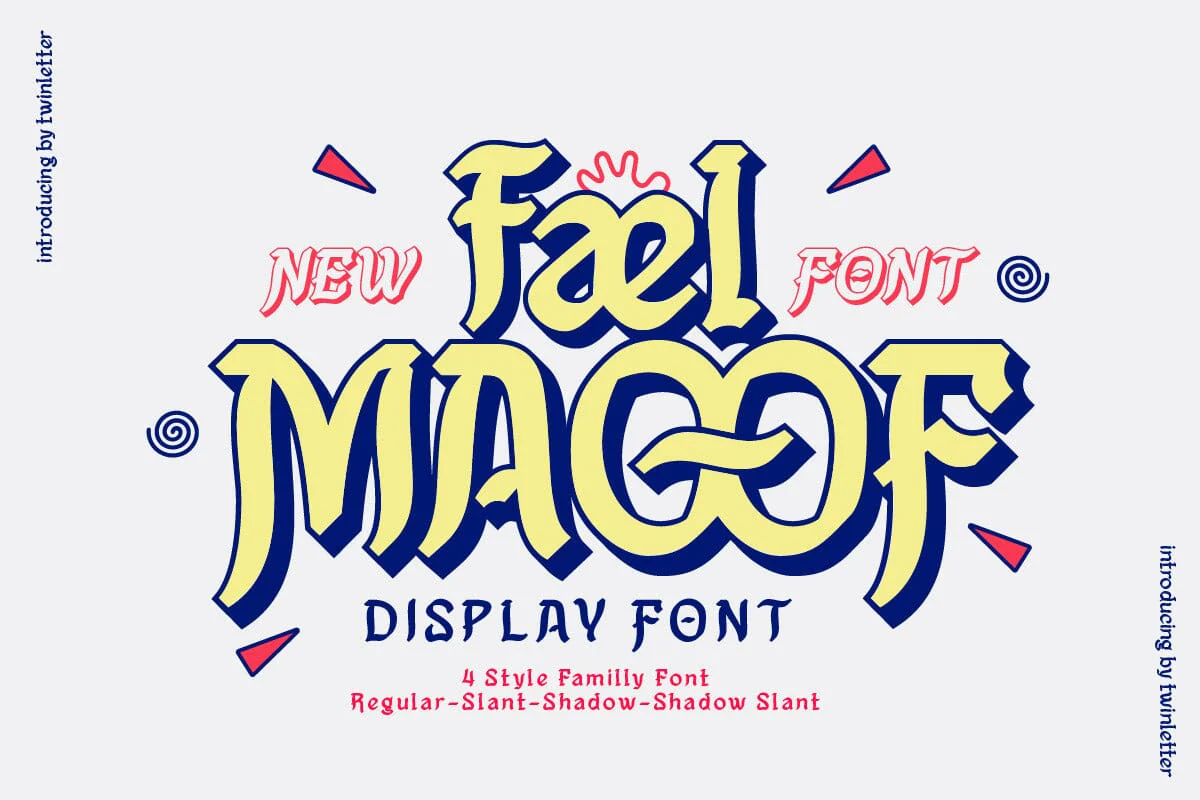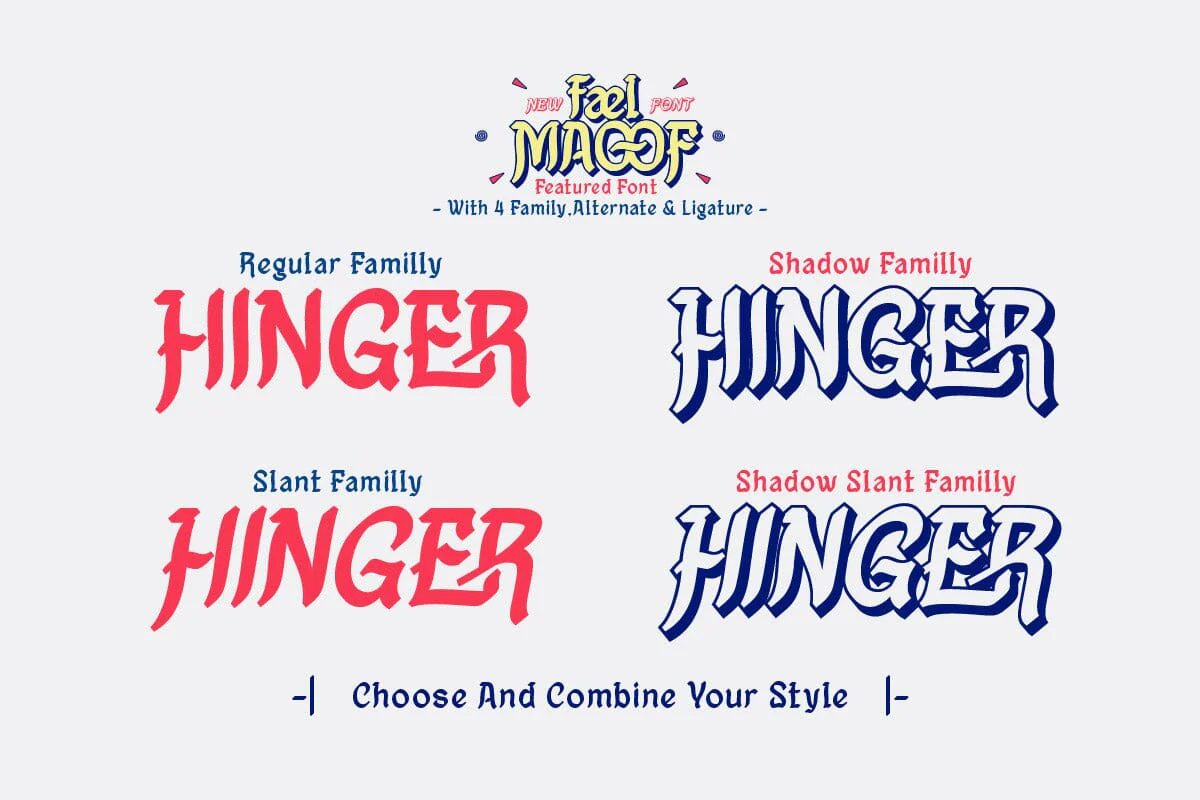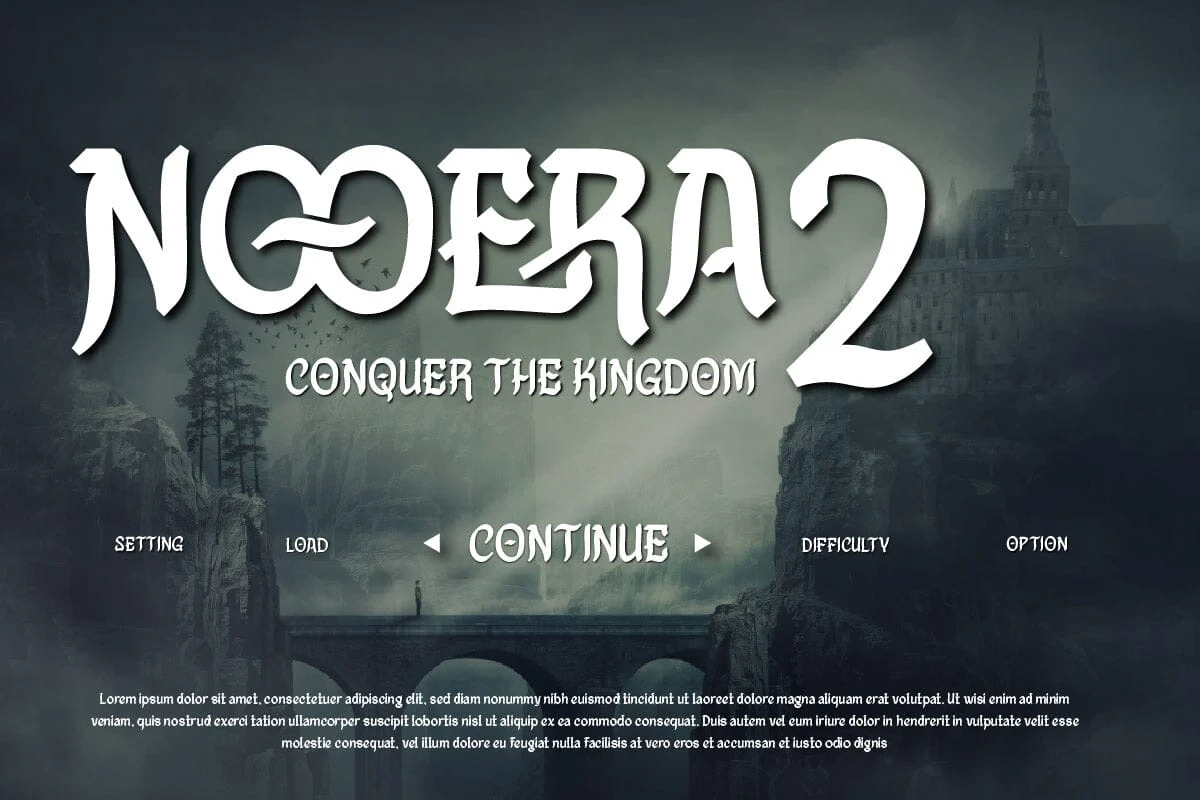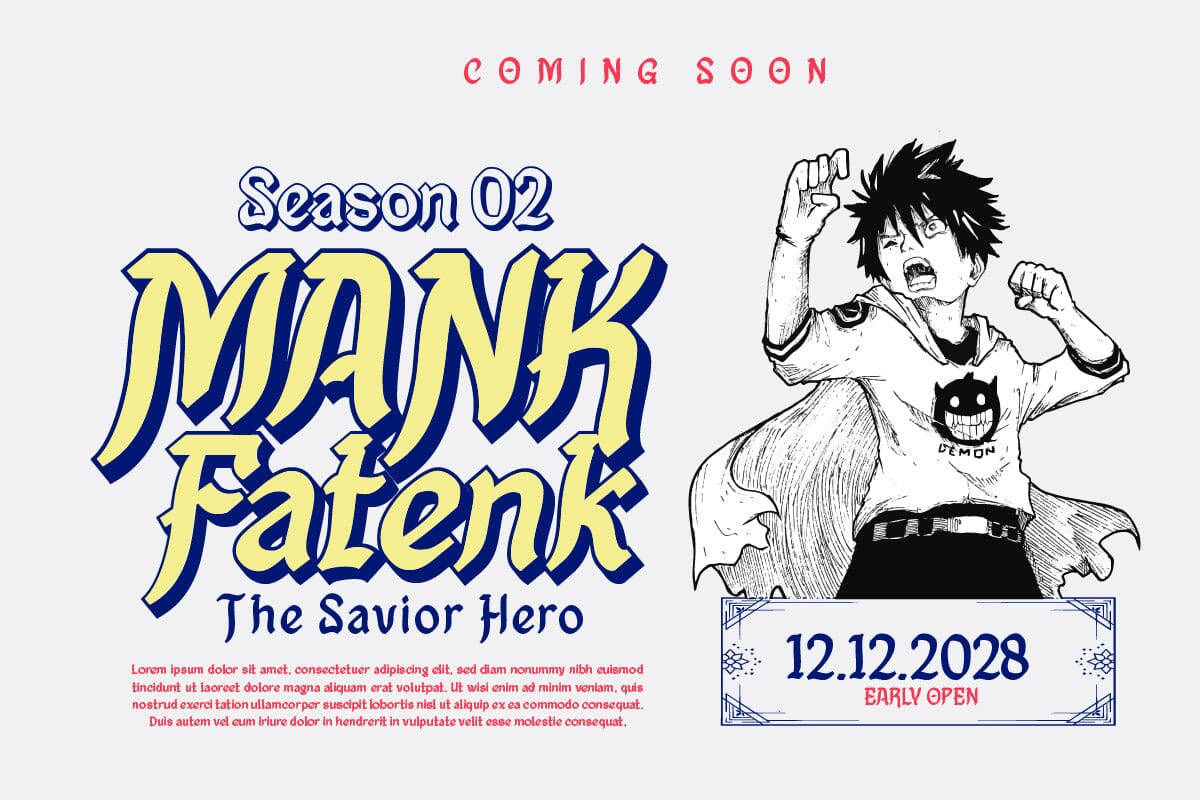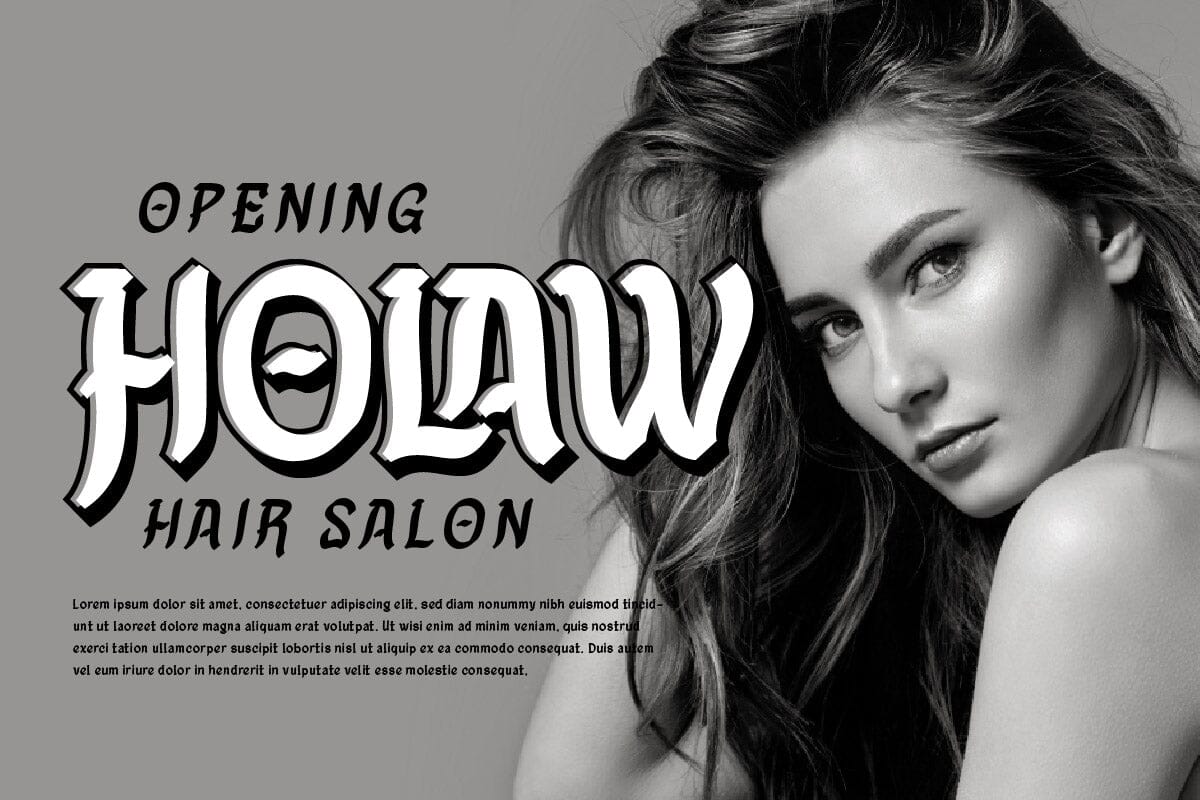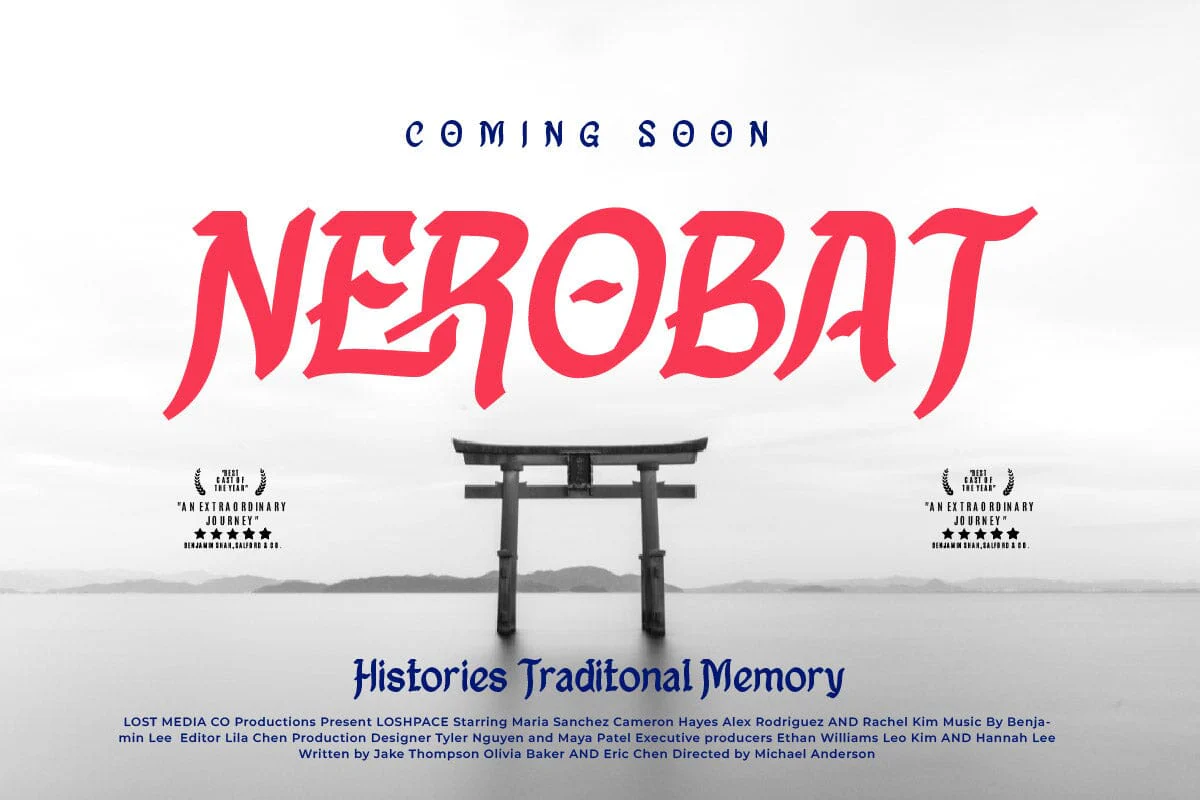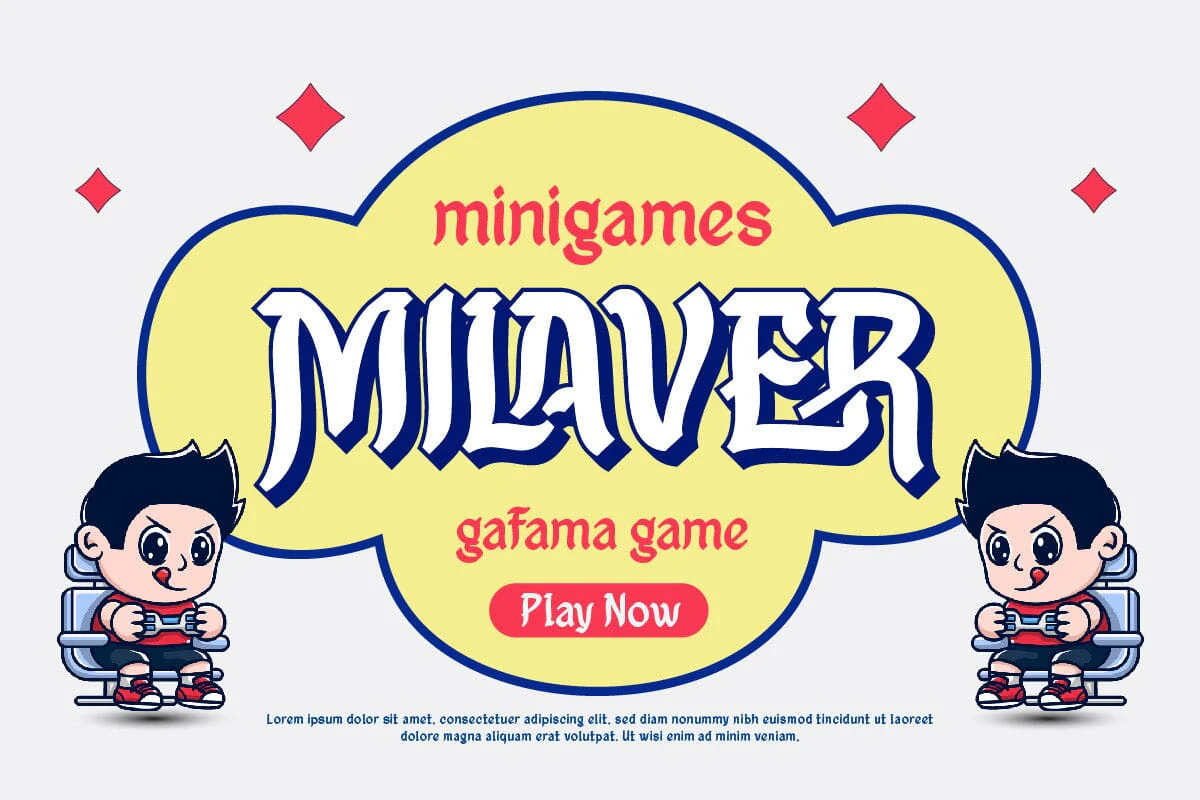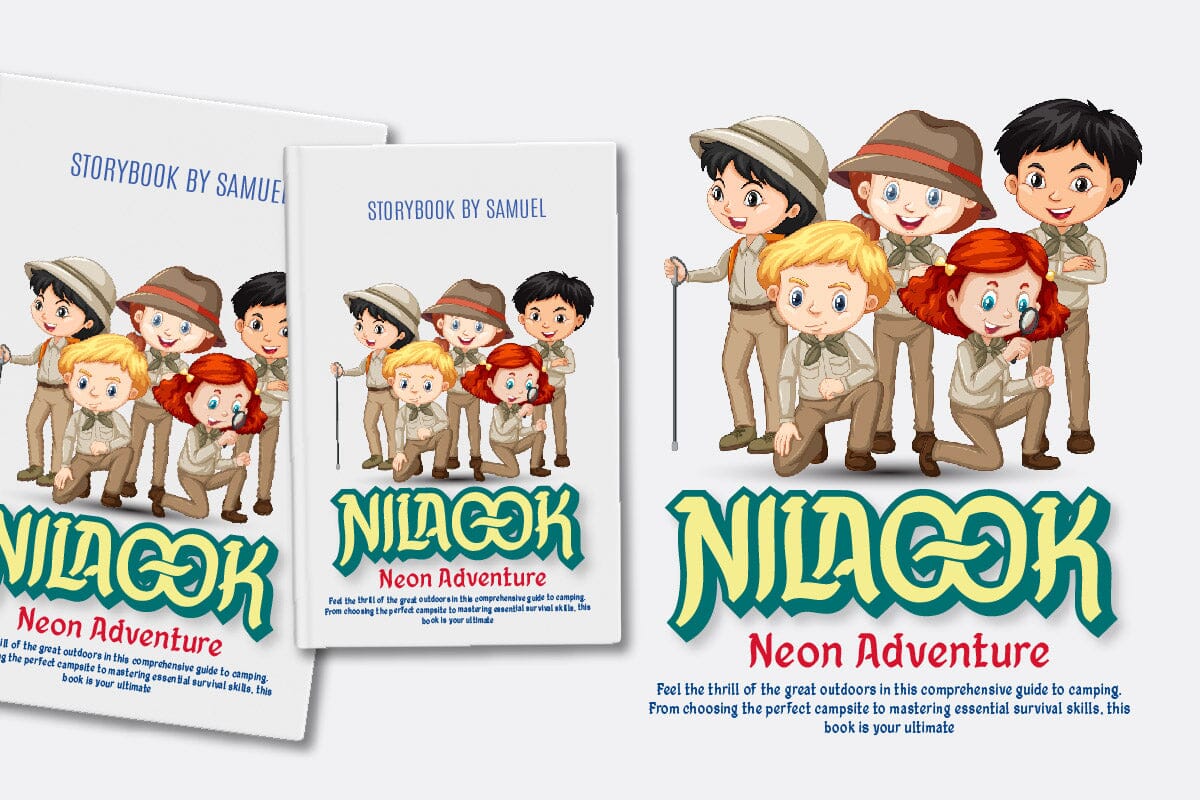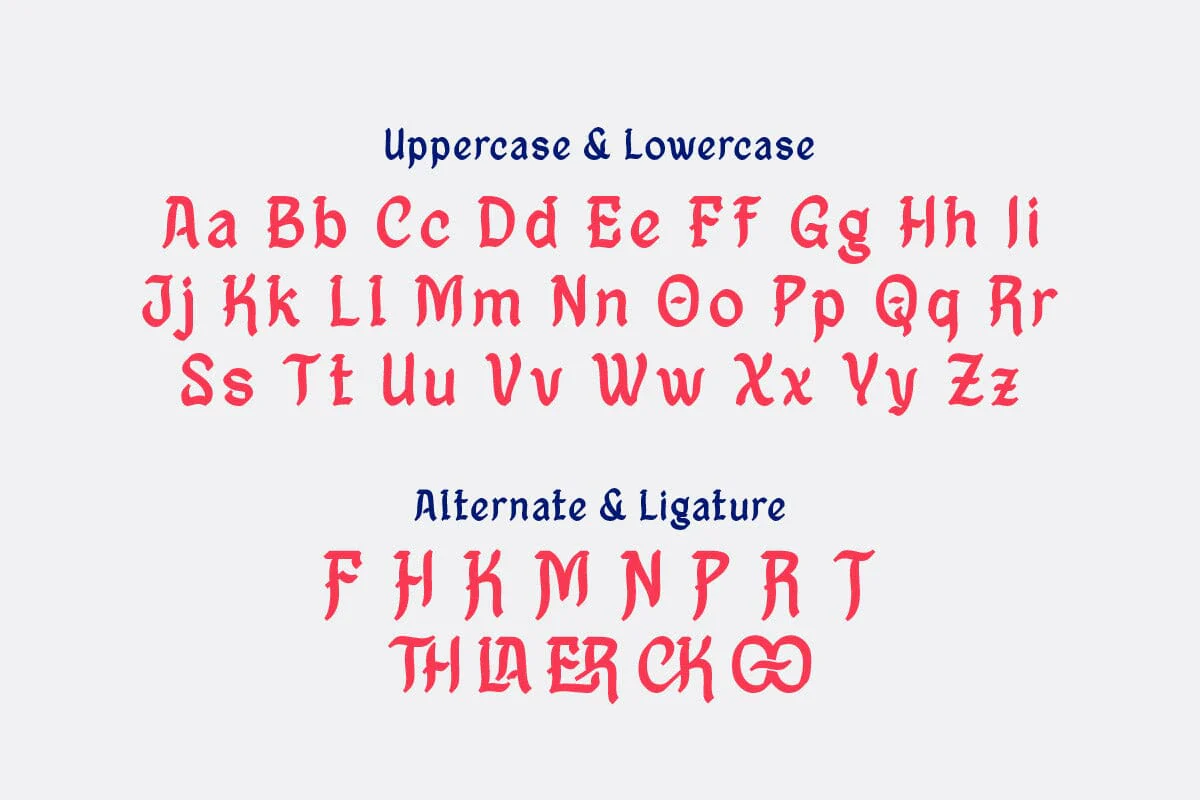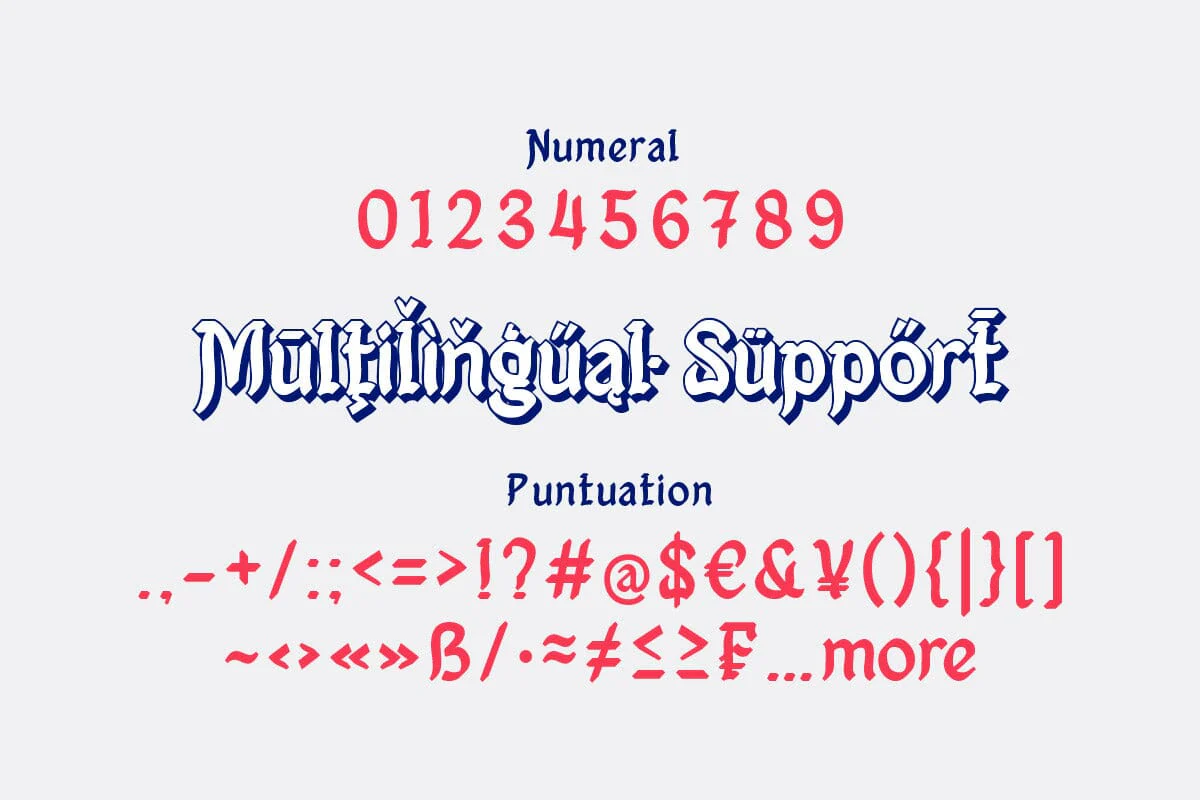
Fael Maoof - Display Font
Fael Maoof is a display font that’s all about making an impact. Its bold, distinctive characters make it perfect for creating eye-catching headlines and logos. But Fael Maoof is more than just a font, it’s a way to make a statement. With Fael Maoof, your designs won’t just be seen, they’ll be remembered. It’s perfect for those designs where you need to make a bold statement, such as advertising campaigns or promotional materials. When you use Fael Maoof, you’re not just choosing a font, you’re choosing to be bold.